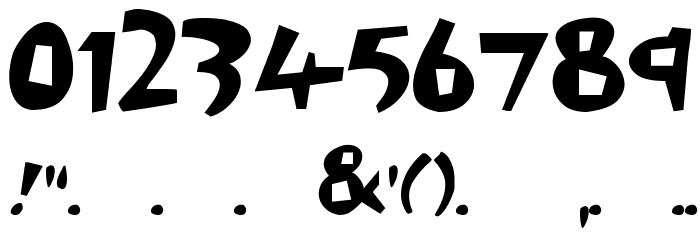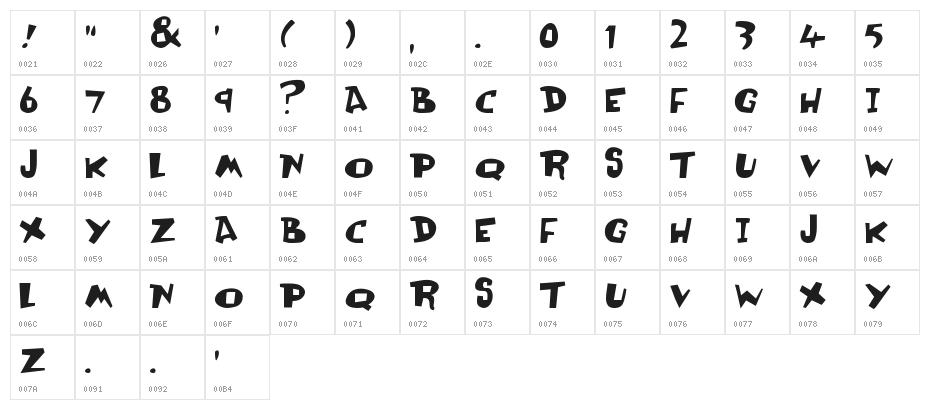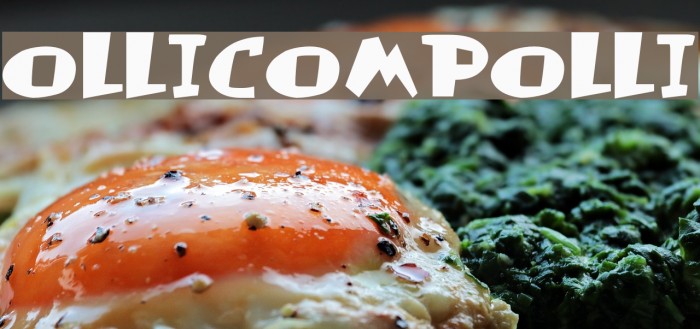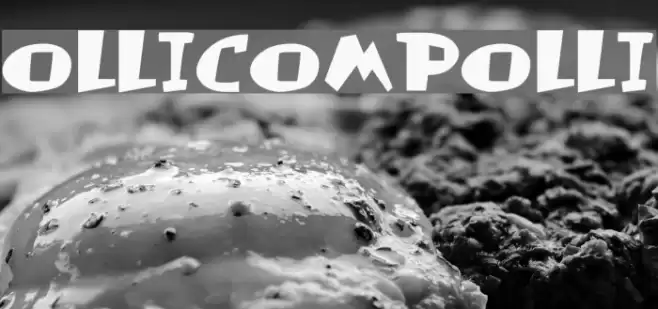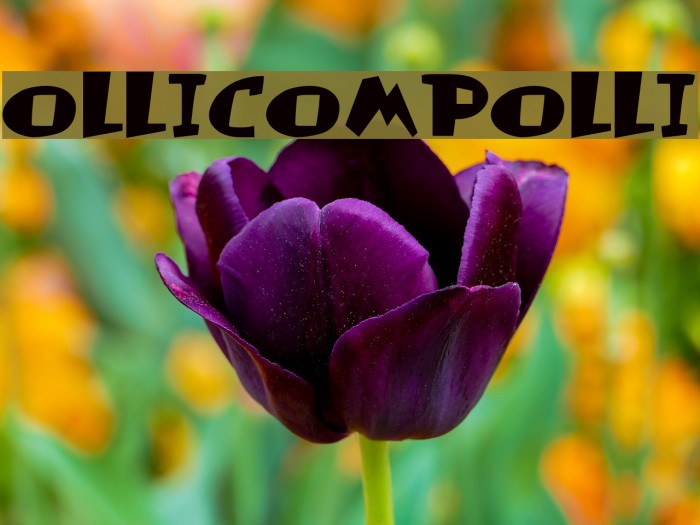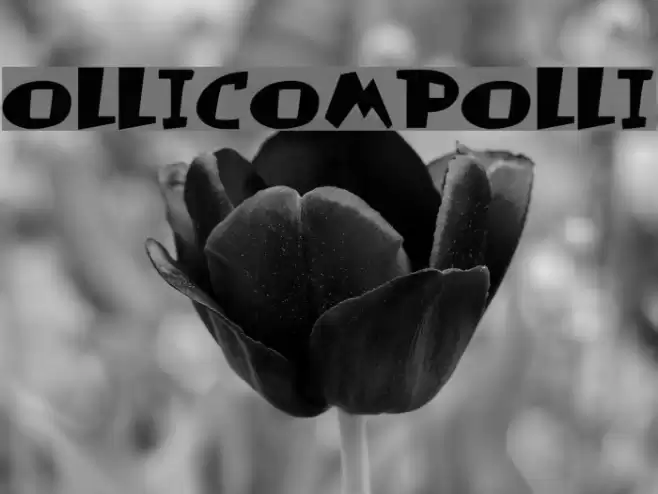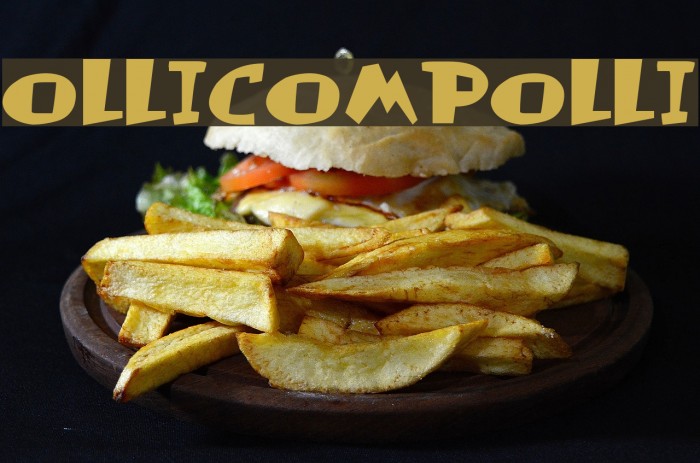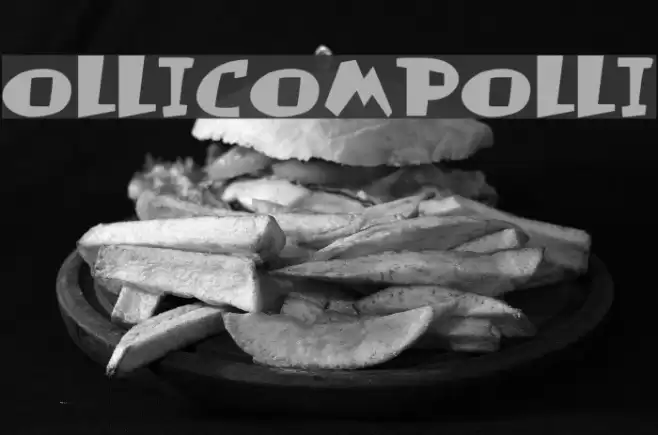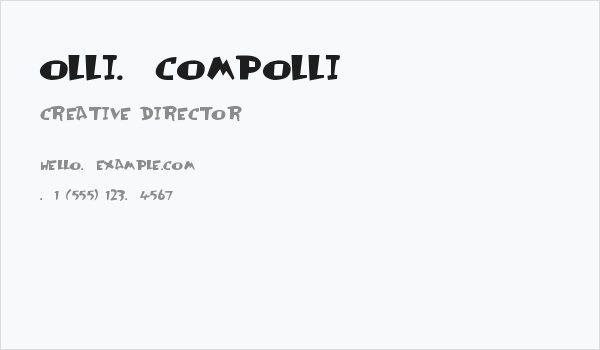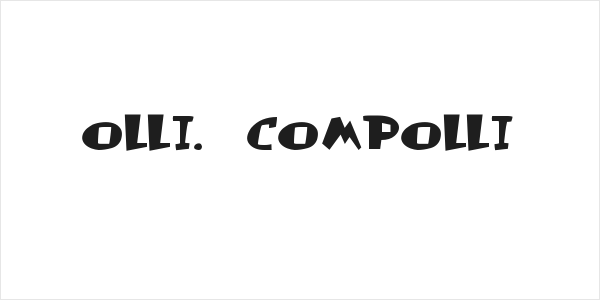
Olli-Compolli Font
Olli-Compolli Description
This font features a playful and quirky design, characterized by its irregular and bold letterforms. Each character exhibits a unique, hand-drawn quality, with varying stroke thicknesses that add a dynamic and energetic feel. The uppercase and lowercase letters maintain a consistent style, with exaggerated curves and angles that create a sense of movement. The numbers and special characters follow the same whimsical design, making the font suitable for creative and informal applications. Its distinct appearance makes it ideal for projects that require a fun and engaging visual impact.